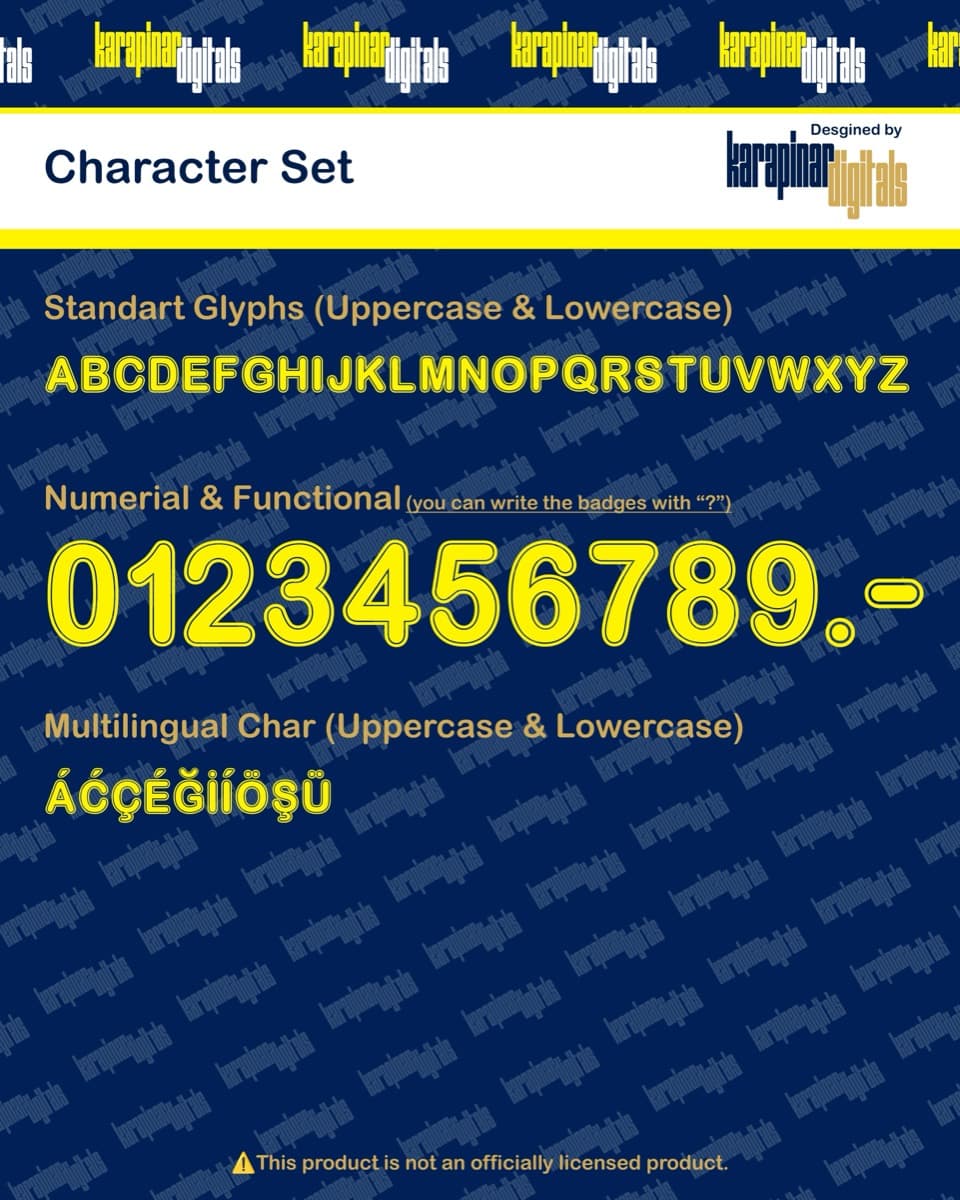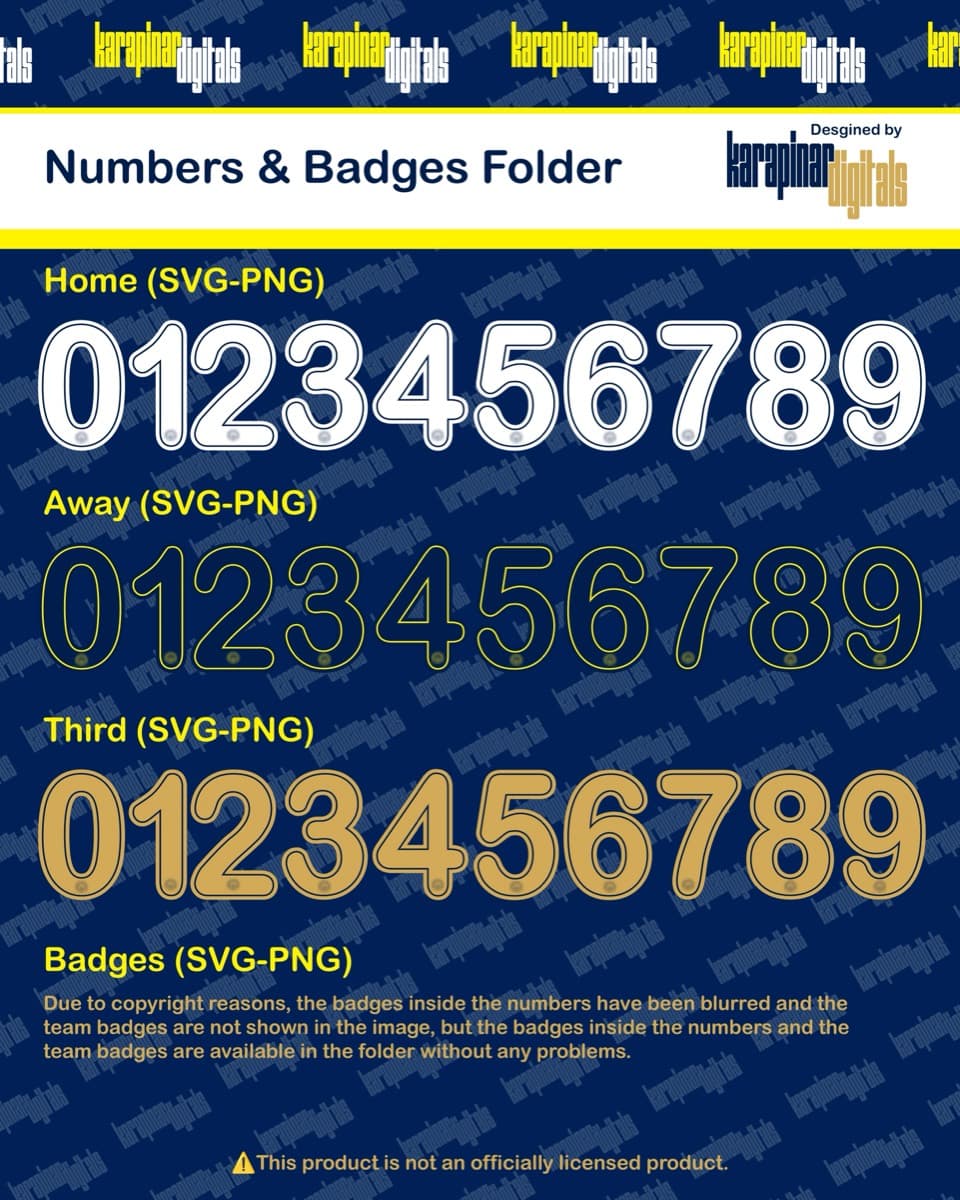
Fenerbahçe 2026 football jersey font for Fenerbahçe — vector letters and numbers preview
Fenerbahçe 2026
Complete 0–9 numeral set
Fenerbahçe 2026
A set inspired by the Fenerbahçe 2026 jersey typography, with a name and number system redrawn for print and screen. Original curves, consistent weight and a complete 0–9 numeral family.
Jersey sets focus on uppercase + numerals; the glyph map shows exactly what this set includes.